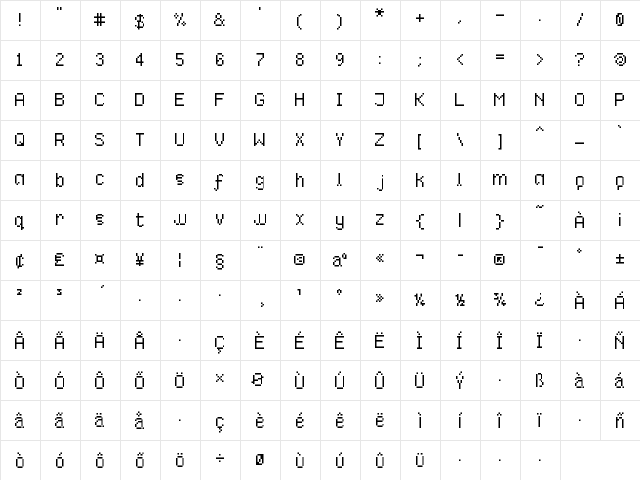
linja_pi_kama_wan Regular
| Designer | increpare |
Design Context for linja_pi_kama_wan Typeface
linja_pi_kama_wan offers clean, dependable letterforms without strong stylistic allegiance, making it a practical choice for designers who need flexibility.